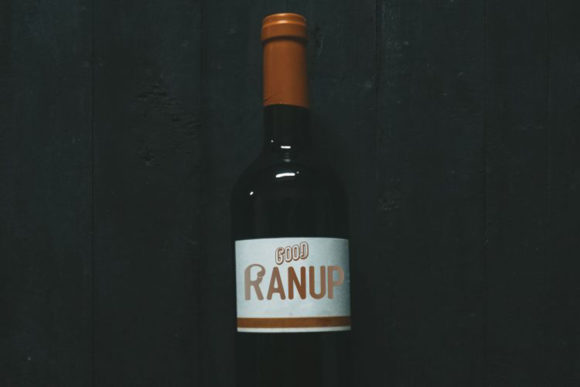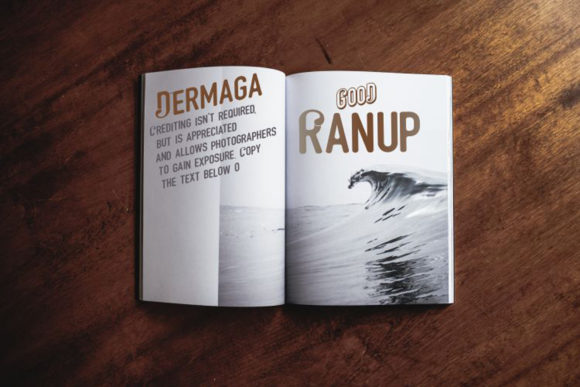
Introduction to Nurhaliza Font Font
Fonts play a crucial role in design, and the Nurhaliza Font font is a typeface that brings both character and versatility to any project. Whether you’re working on a branding project, a website, or a print design, the Nurhaliza Font font offers a unique style that can elevate your work.
Nurhaliza is a unique and bold sans serif font with a bold twist.
Get inspired by its unique spark, and turn any design project into a stand out .
Key Features of Nurhaliza Font Font
Why Choose Nurhaliza Font Font?
The Nurhaliza Font font is more than just a typeface – it’s a design tool that helps you communicate your message with style and clarity. Its unique character set and versatile design make it suitable for a wide range of applications, from elegant invitations to bold headlines.
With its carefully crafted letterforms and balanced proportions, the Nurhaliza Font font ensures readability and visual appeal across all mediums.
What makes Nurhaliza Font font special?
The Nurhaliza Font font stands out with its unique design, exceptional readability, and versatility across various design applications.